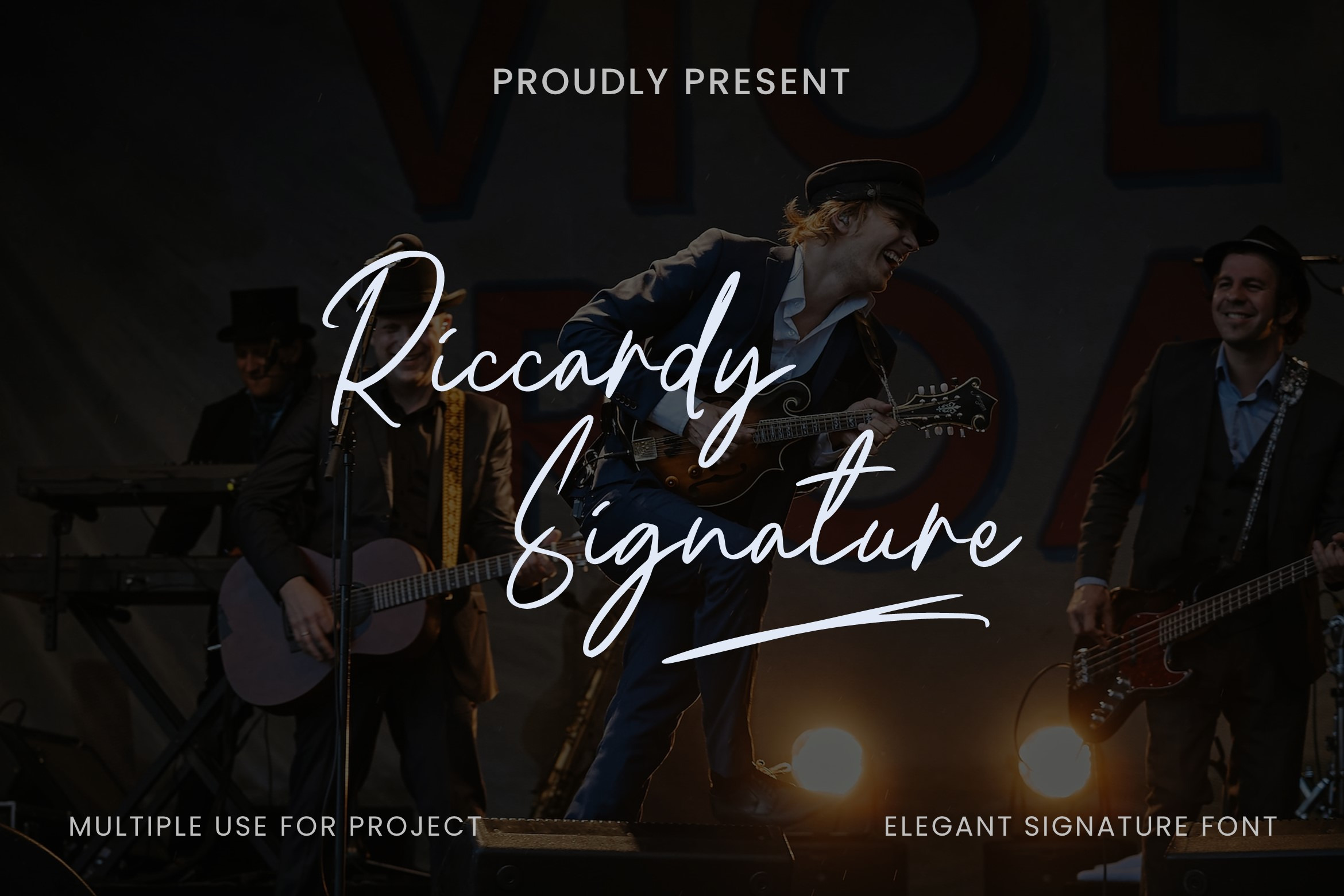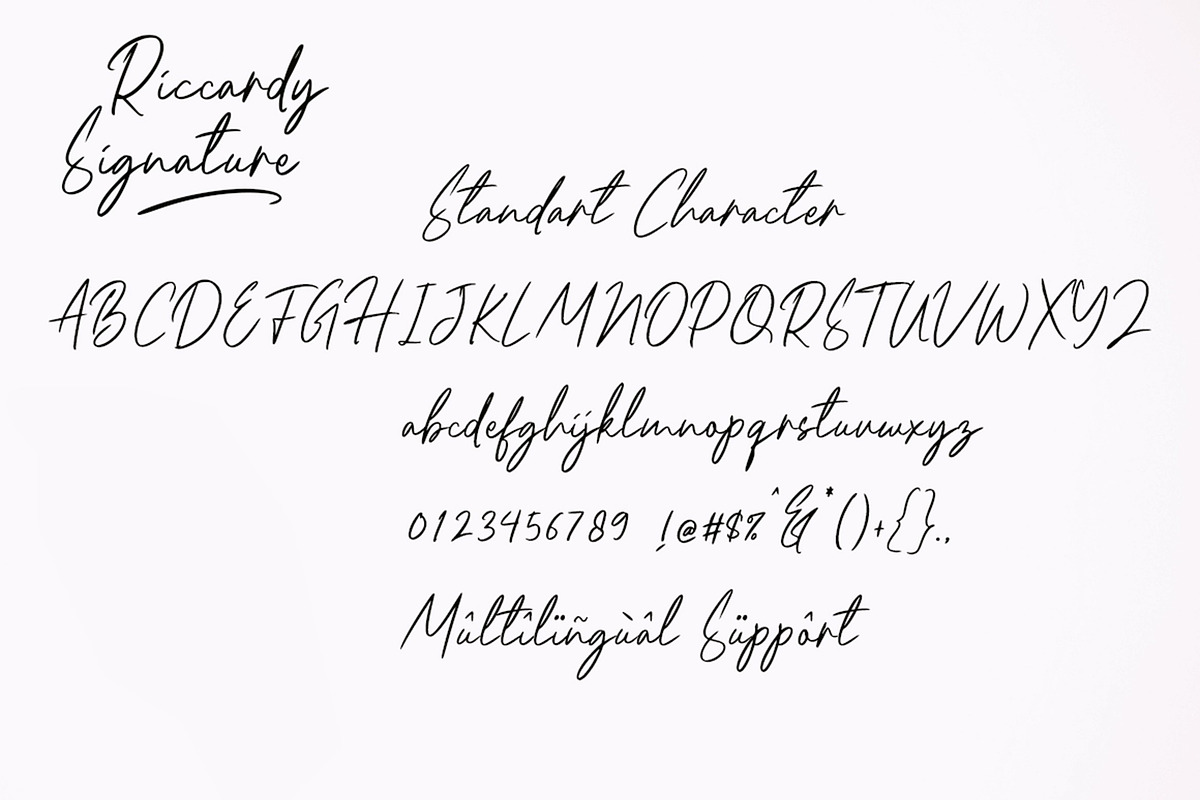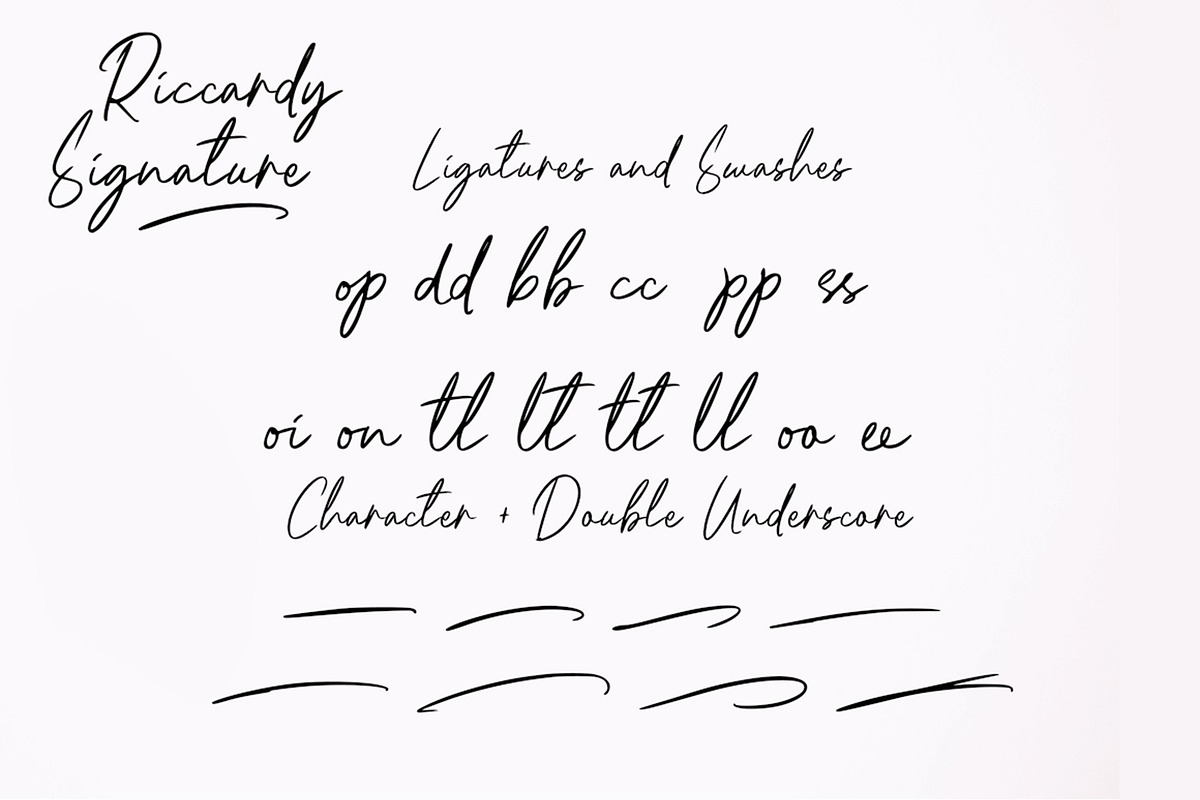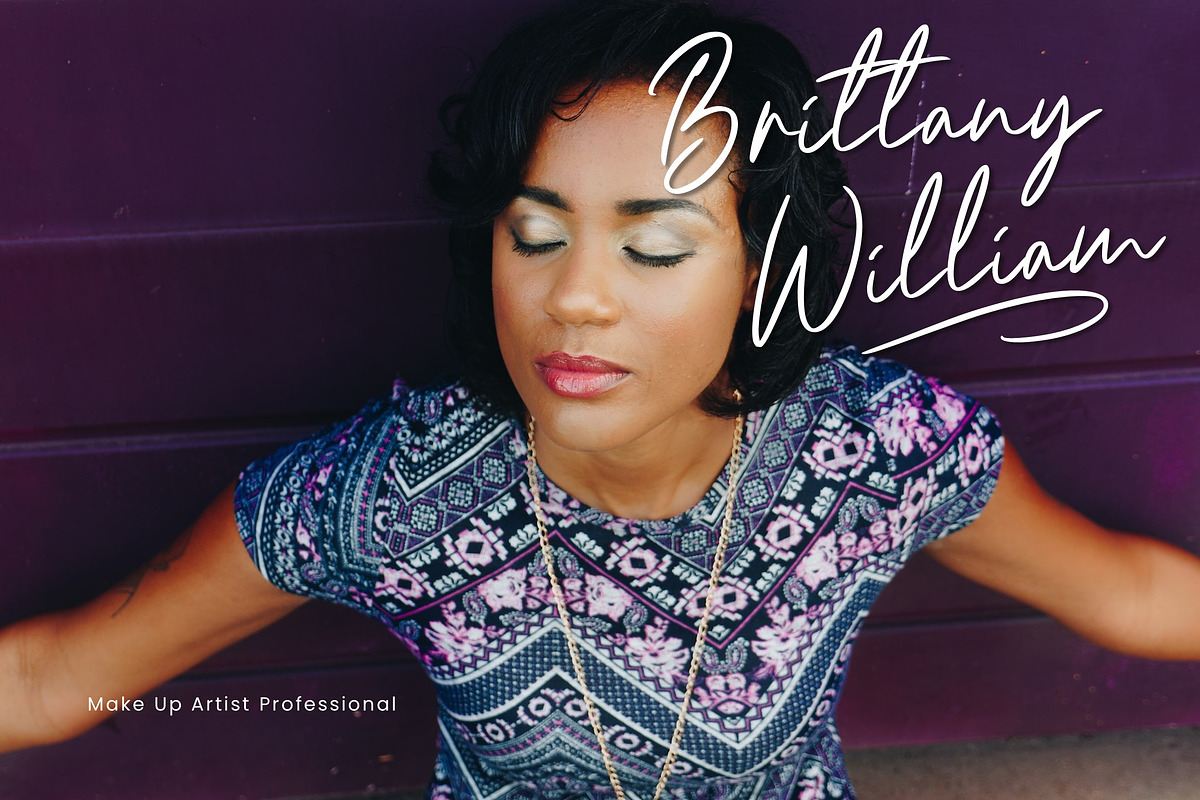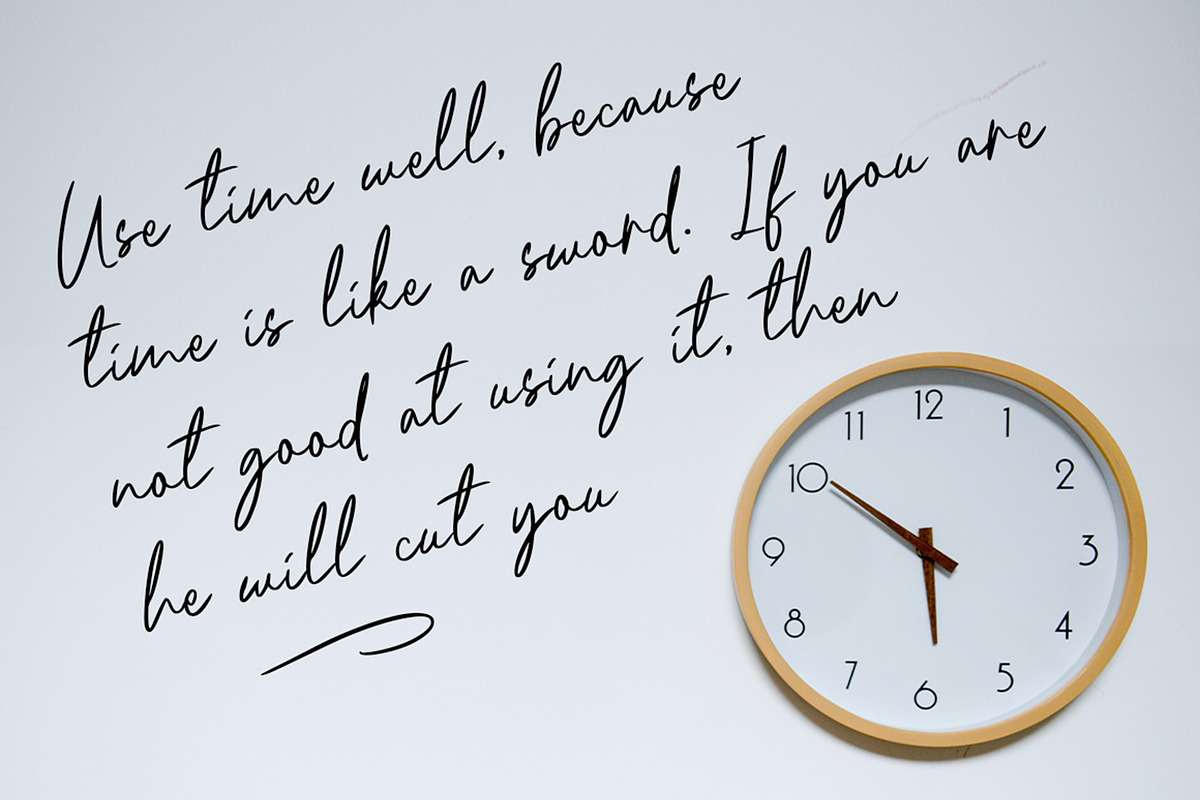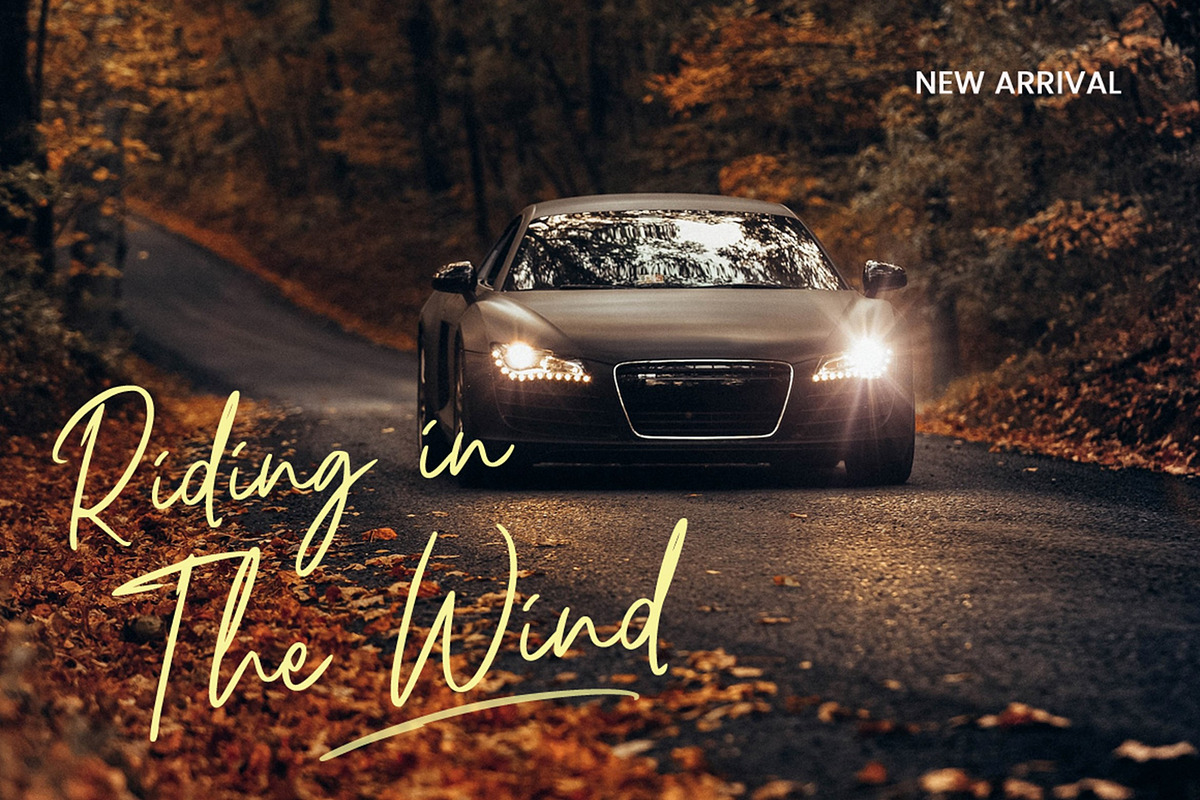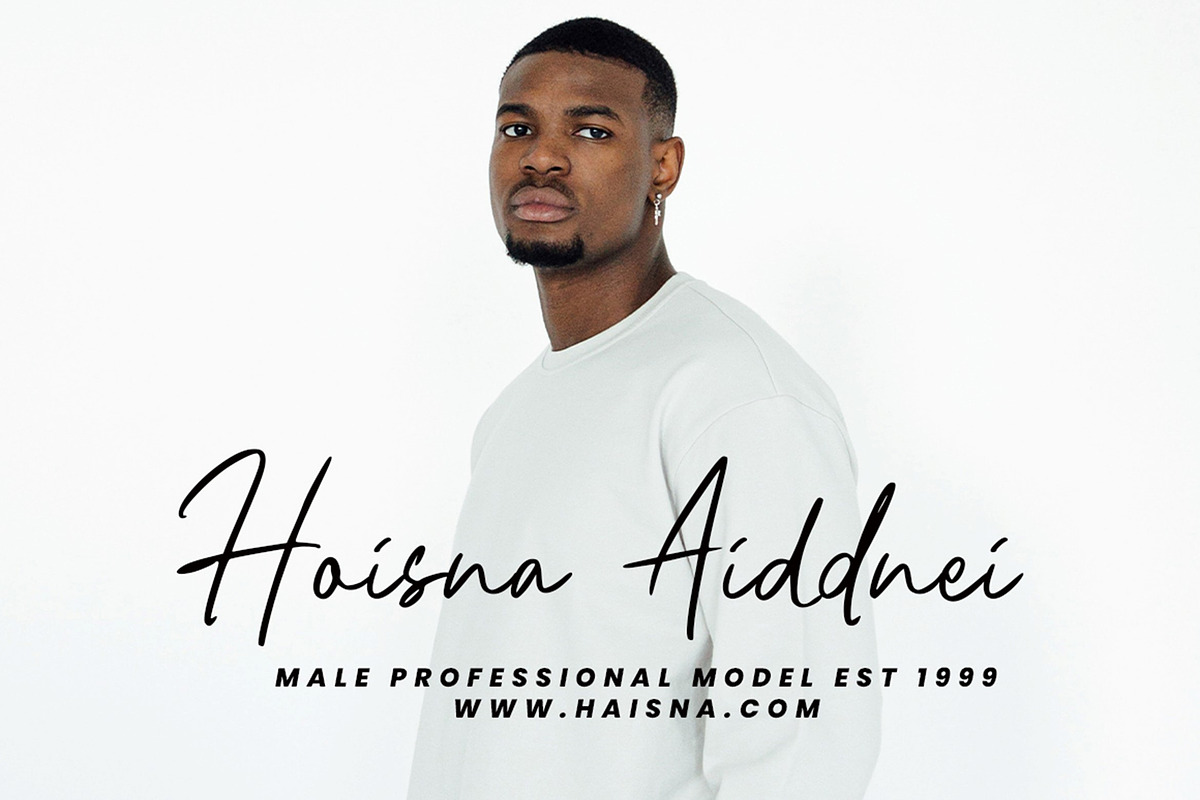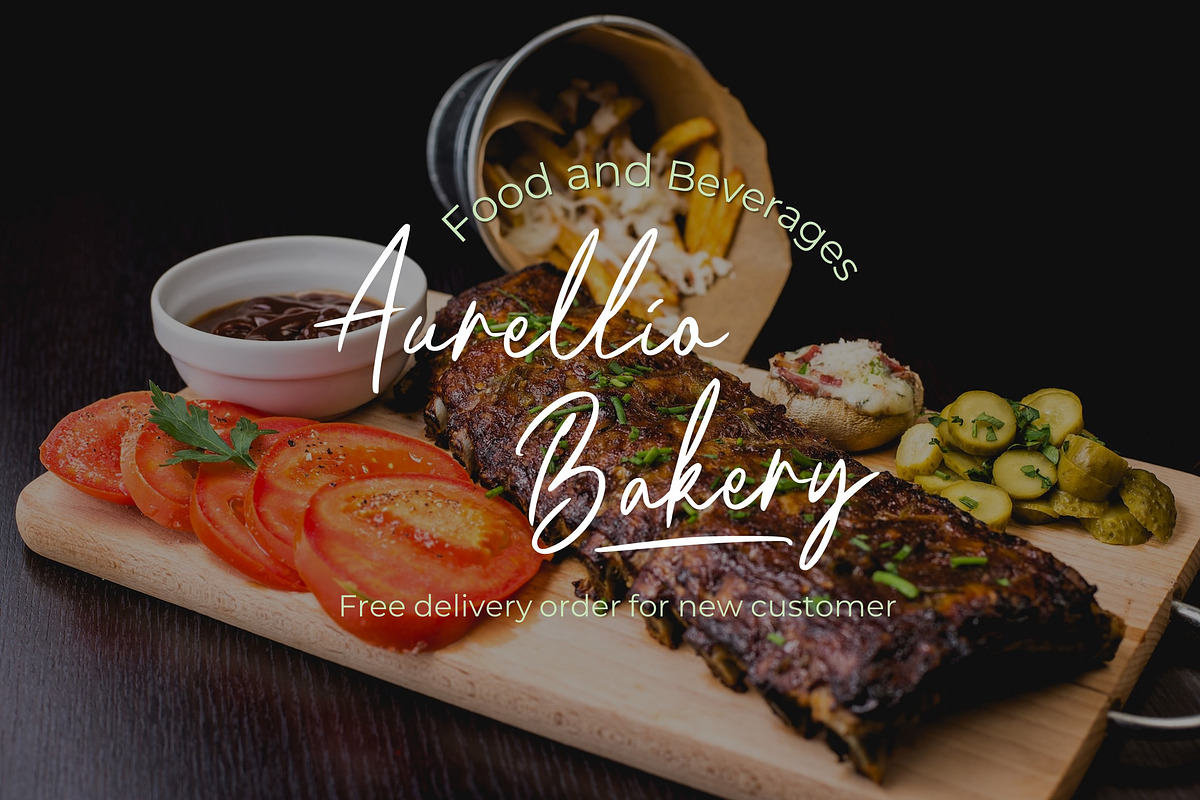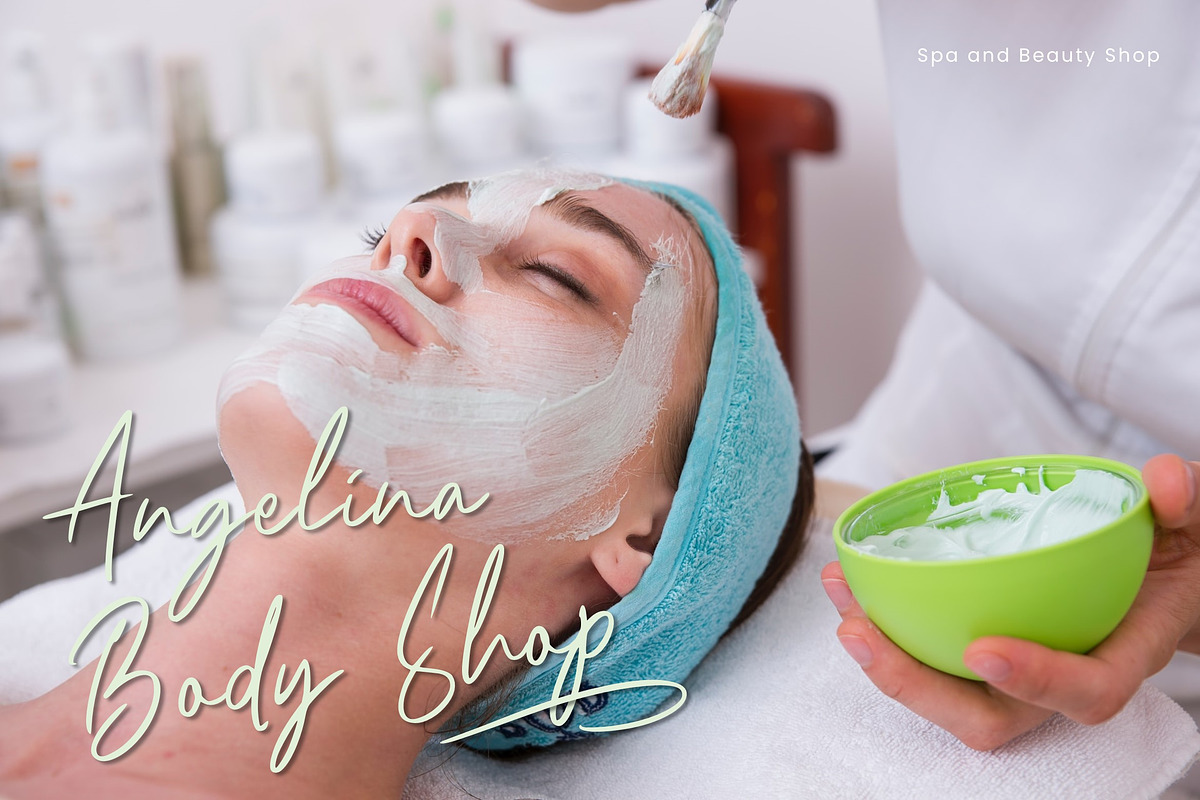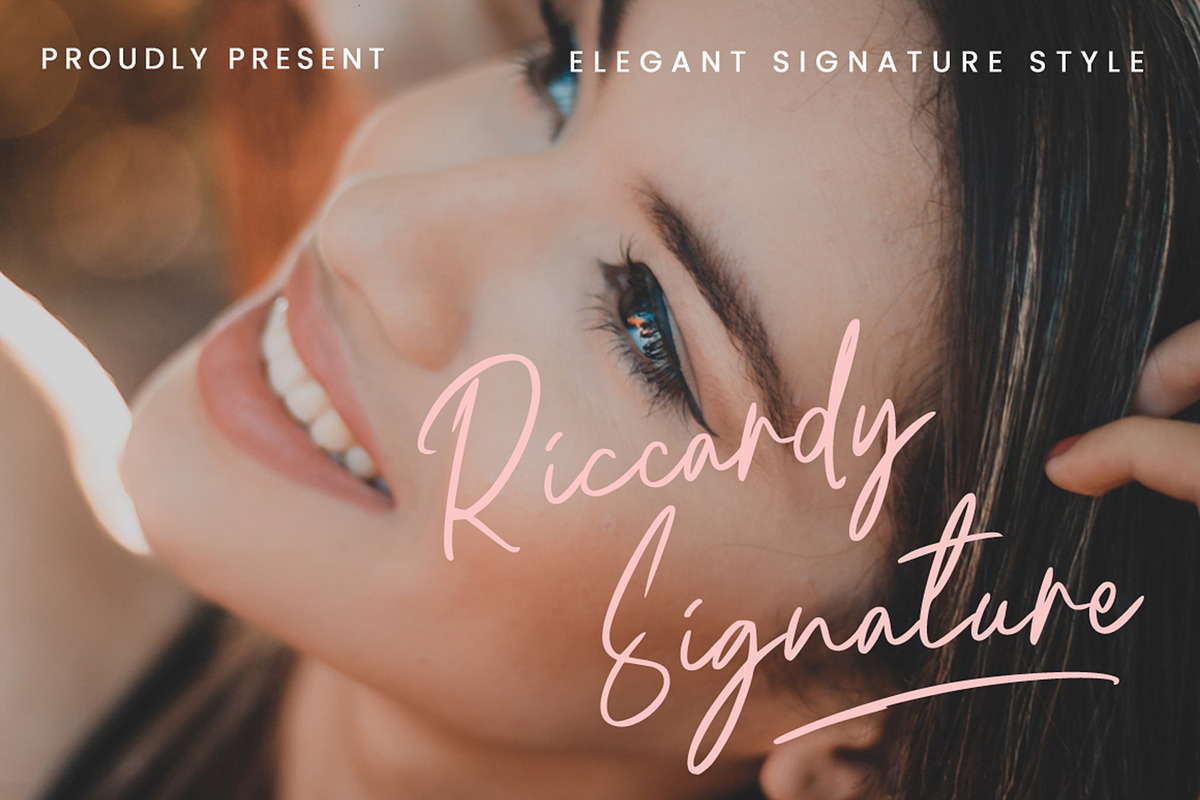
Riccardy Signature Font
Riccardy Signature Font is an elegant signature, it’s perfect for many different projects such as logos and branding, invitations, signature, labels, photography, and also can be used for Creative Projects.